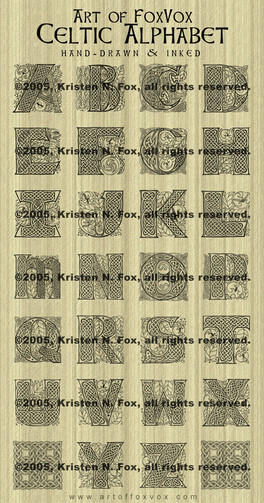
Large Block font.Old stuff, now in the public domain. feel free to use un-impinged.
Finished the first font made out of the pictures you posted [link]